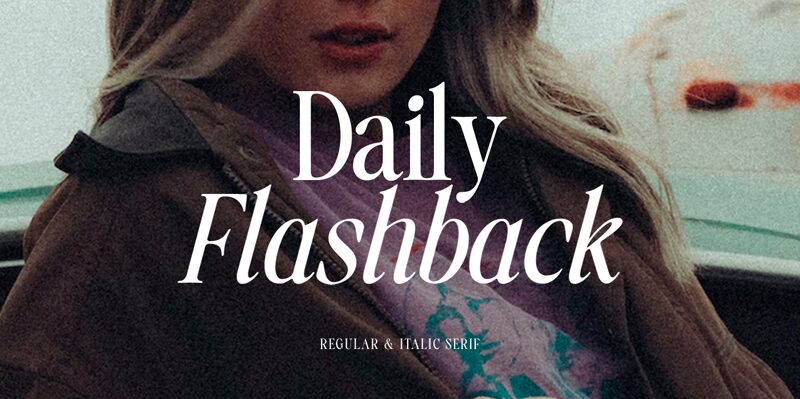
Daily Flashback, designed by Letterhend Studio, is a sophisticated serif typeface that exudes elegance and charm. Its semi-light weight adds a touch of delicacy to any project, making it perfect for formal forms such as invitations, labels, and wedding cards. This versatile font is also suitable for use in magazines, books, packaging, and advertising materials.
With its timeless style and clean lines, Daily Flashback has the potential to elevate diverse creative projects. Whether you're working on a fashion brand's logo or designing a novel cover, this font brings a sense of refinement to any typography. Its versatility makes it an excellent choice for stationery and make-up packaging as well.
Daily Flashback's unique characteristics make it stand out among other serif typefaces, offering endless possibilities for designers looking to add a touch of sophistication to their work.